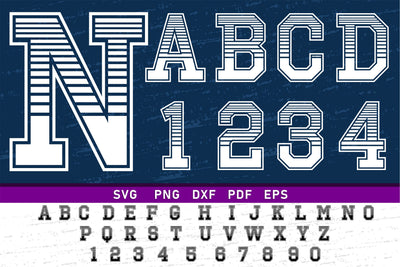
Stripes Varsity Font SVG Designs, Jersey Fonts SVG, College Fonts design, Varsity Letters Alphabet Monogram SVG Bundle, Sports Fonts and Numbers
Varsity Font SVG Designs, Jersey Fonts SVG, College Fonts design, Varsity Letters Alphabet Monogram SVG Bundle, Sports Fonts and Numbers